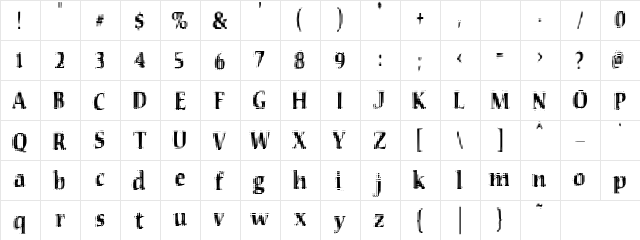
VTC Seeindubbledointriple Regular
| Designer | WolfBainX |
Design Context for VTC Seeindubbledointriple Typeface
VTC Seeindubbledointriple offers clean, dependable letterforms without strong stylistic allegiance, making it a practical choice for designers who need flexibility.
Pro Tip: Use VTC Seeindubbledointriple in both headline and body roles to test its range before committing to a single application.